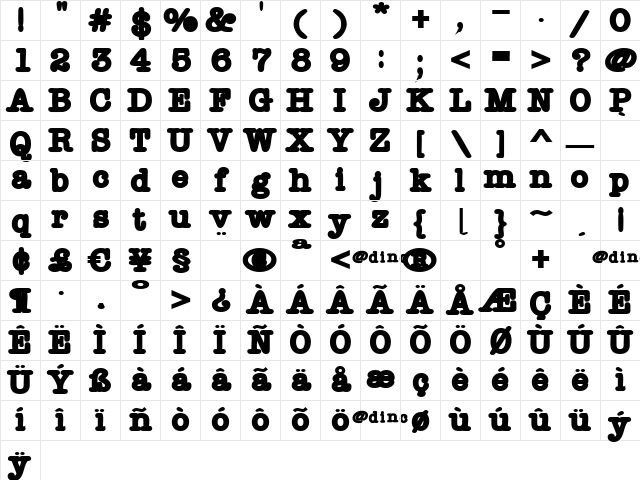
TypeToyNight Regular Free Font
TypeToyNight Regular
Design Context for TypeToyNight
TypeToyNight is a composed and adaptable typeface that performs quietly and consistently across a wide range of design contexts.